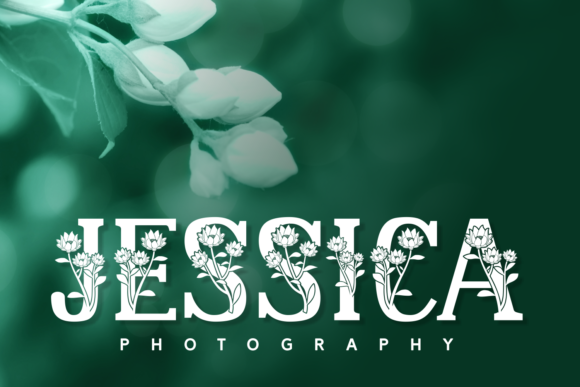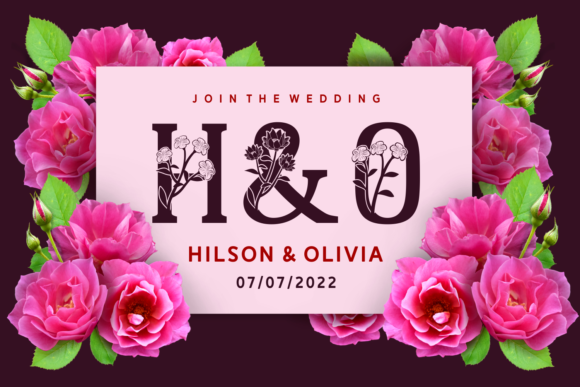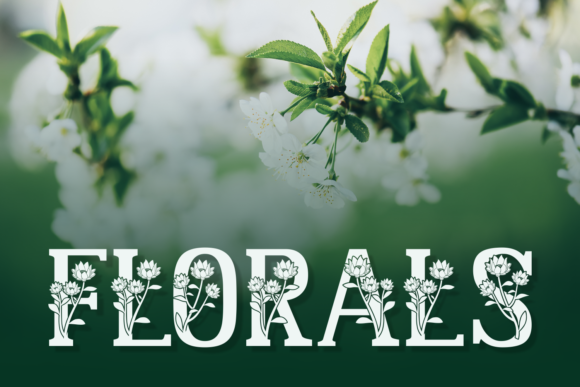
Introduction to Omaze Font
Omaze is a flourishing decorative font.
This spring-like typeface features beautiful flower details on its character set Grab it now and create wedding invitations, save-the-date cards, Valentine cards, business cards, logos, branding, sales, quotes, etc.